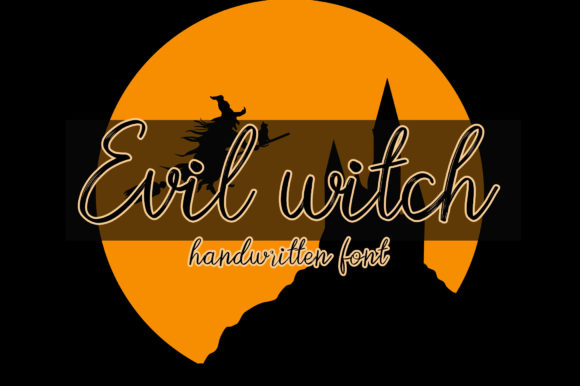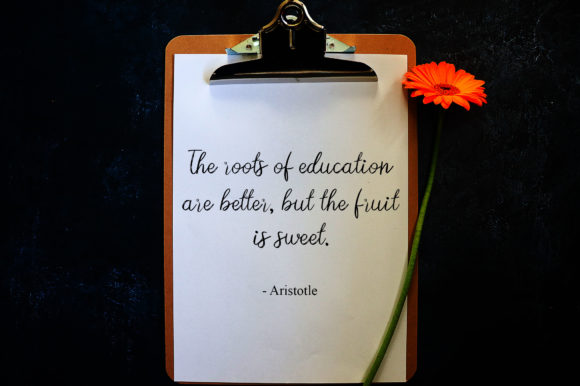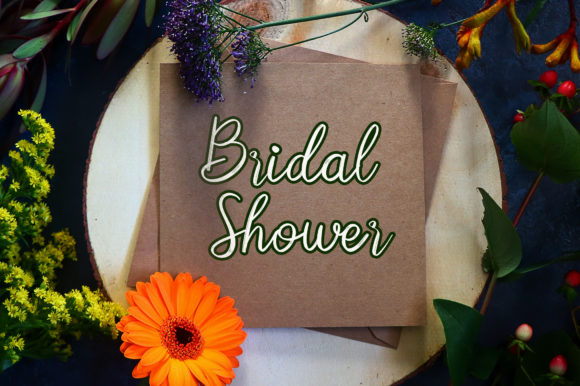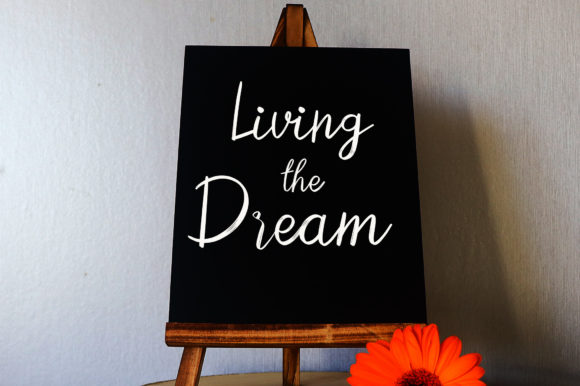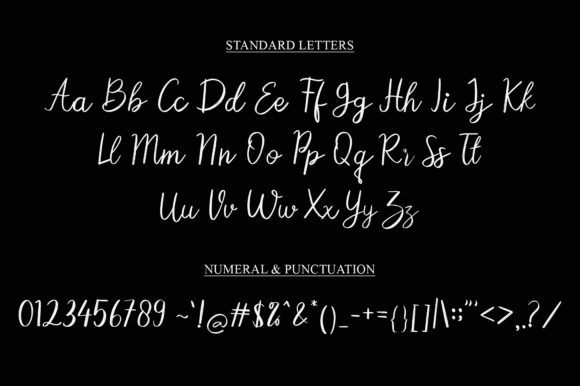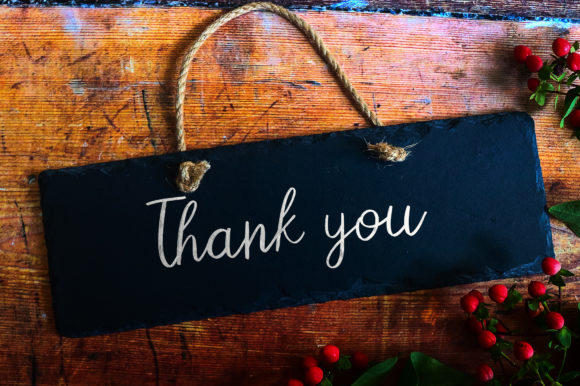
Evil Witch Font
About Evil Witch Font
Evil Witch is a sweet and cursive handwritten font. This gentle font will look gorgeous on a variety of design ideas. It will add a joyful and romantic touch to each of your projects!